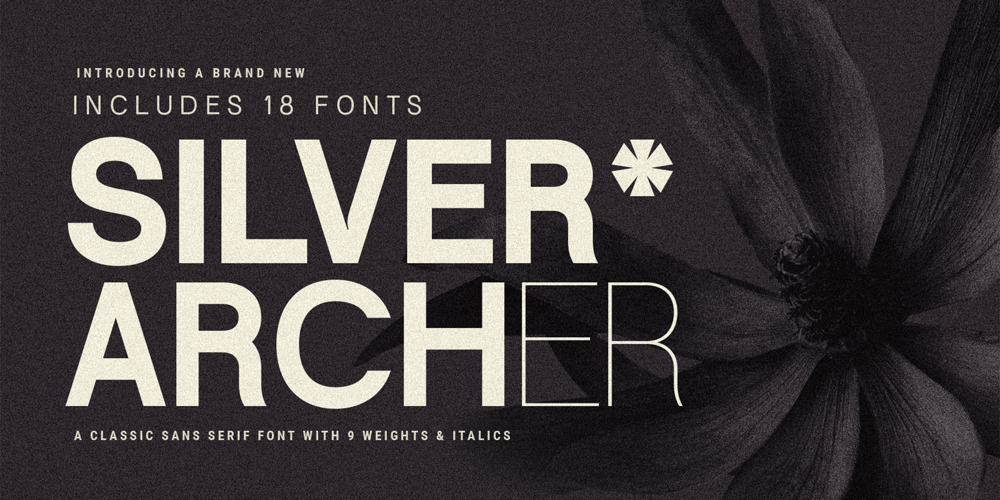
Silver Archer Font Family was designed by SilverStag and published by SilverStag. Silver Archer contains 18 styles and family package options. In a world of fleeting trends, Silver Archer stands as a testament to enduring elegance and timeless design. Inspired by the classic sans serif typefaces of the mid-20th century, Silver Archer exudes an air of sophistication and refinement, making it an ideal choice for a wide range of typographic applications.With its meticulously crafted proportions and harmonious stroke contrast, Silver Archer strikes a perfect balance between traditional aesthetics and contemporary sensibilities. Its open counters and generous x-height ensure exceptional legibility, both on screen and in print, while its nine weights, ranging from Thin to Black, with each weight complemented by its italic counterpart, provide ample flexibility to suit any design mood or hierarchy.